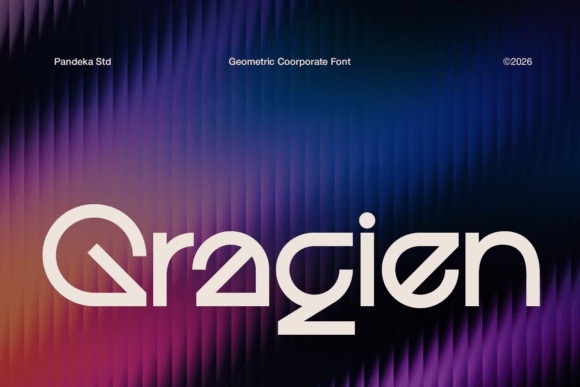
Unlocking Modern Corporate Design with Gragien Font
Have you ever stared at a blank page, desperately seeking the perfect font to convey your brand’s message? We’ve all been there. For designers, finding the right font can be a game-changer – it’s the difference between a dull, uninspired design and a stunning, memorable one. And that’s exactly what Gragien Font is designed to do.
Gragien Font is a clean and modern geometric sans serif font that exudes professionalism, innovation, and forward-thinking design. Its precise shapes, smooth curves, and balanced proportions make it the perfect choice for corporate identity, tech branding, and digital interfaces. With its excellent readability and sleek visual tone, Gragien Font is a valuable asset for designers looking to elevate their designs and leave a lasting impression.
Gragien Font Key Features
- Font Family: Gragien Font is a sans-serif font family that offers a modern and clean look.
- Unique Characteristics: Gragien Font features a unique blend of geometric and organic elements, giving it a distinctive look that is both modern and timeless.
Gragien Font Review
As a designer, I recently had the chance to work with the Gragien font, and I must say it was an interesting experience. Here’s my honest review.
The Gragien font has a unique, quirky feel to it that can add a lot of character to your designs. Its irregular shapes and unpredictable letterforms can create a sense of whimsy and playfulness, making it perfect for projects that require a touch of personality.
- ✨ Great for creative and artistic projects, such as posters, flyers, and book covers
- ✨ Unique and eye-catching, making it stand out from more traditional fonts
- ✨ Can be used for both digital and print projects
While the Gragien font has its charm, it’s not without its limitations. Its irregular shapes and unpredictable letterforms can make it difficult to read, especially for large blocks of text. Additionally, its unique style may not be suitable for projects that require a more formal or professional tone.
- ⚠️ Can be difficult to read for large blocks of text
- ⚠️ May not be suitable for formal or professional projects
- ⚠️ Limited language support
Overall, the Gragien font is a fun and creative choice for designers who want to add a touch of personality to their projects. However, it’s not for everyone, and its limitations should be carefully considered before using it for a particular project.
The Gragien Font is a versatile and elegant font that can be used in various design projects. Here are some tips and common use cases:
- Use the Gragien Font for headings and titles to add a touch of elegance to your design.
- Pair the Gragien Font with other elegant fonts to create a sophisticated and professional look.
- Use the Gragien Font for invitations, wedding stationery, and other formal events.
- Experiment with different font sizes and colors to create a unique and eye-catching design.
Alternatives to Gragien Font
Gragien Font is a popular font choice among designers, but sometimes it may not be the best fit for a particular project. Here are some alternatives to consider:
Montserrat is a sans-serif font that is similar to Gragien Font in its clean and modern aesthetic. It was designed specifically for urban environments and features a geometric, industrial feel. Use Montserrat when you need a font that is easy to read and has a strong, modern vibe.
Montserrat vs Gragien Font: While both fonts are modern and sans-serif, Montserrat has a more geometric feel and is designed specifically for urban environments. Gragien Font has a more rounded feel and is often used for body text.